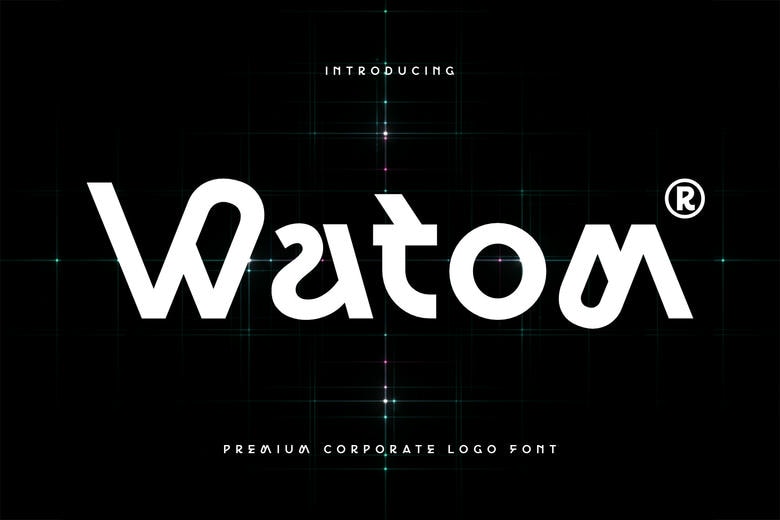
Watom Font
The Watom is an extols corporate font. It is a high quality logo typeface that is supposed to convey sophistication, authority and modern professionalism. Created on accurate geometry, trustworthy proportions, and high-end curves, this typeface provides a sharp and clean image of high-end branding.
Designed as a business wanting to support credibility and distinction, Watom demonstrates a sense of stability, innovation and executive confidence. Its well-weighed letterforms, especially in such characters as W, a and m make it a memorable visual identity that remains timeless and modern.
Ideal in corporate logos, financial companies, consulting companies, tech companies and luxury brands that aim to have a powerful, but classy typographic voice.
Watom Logo Font